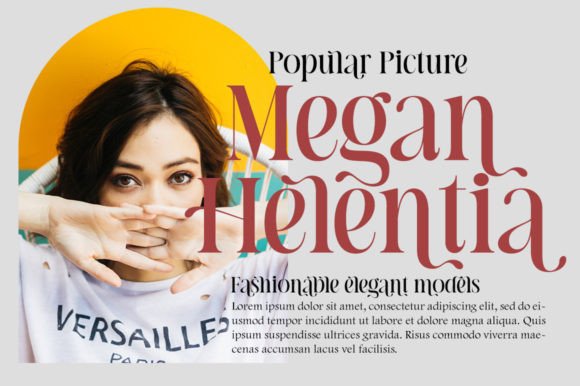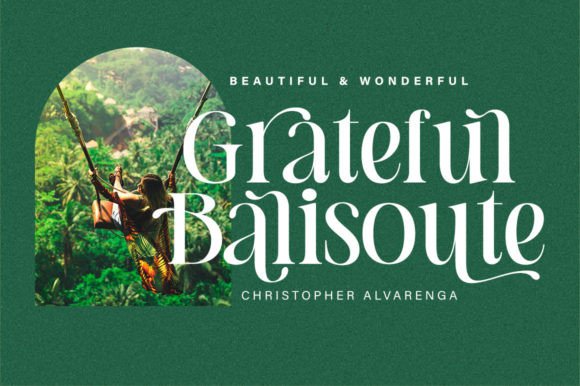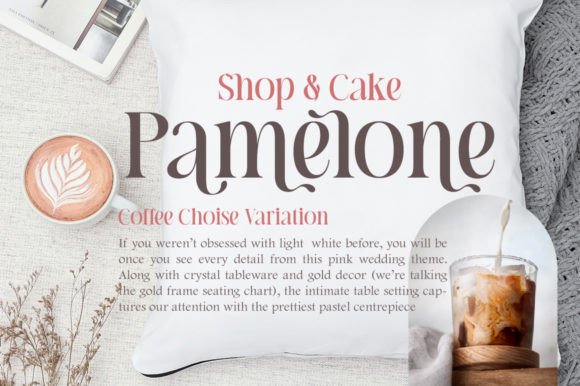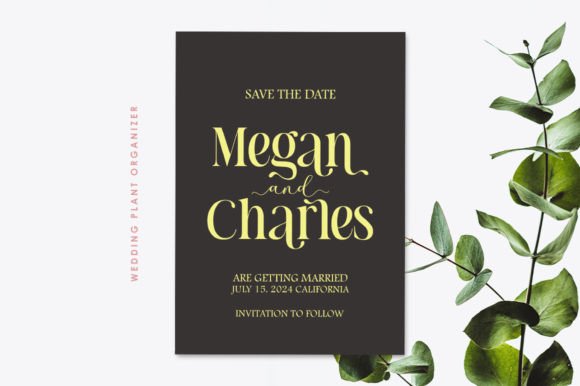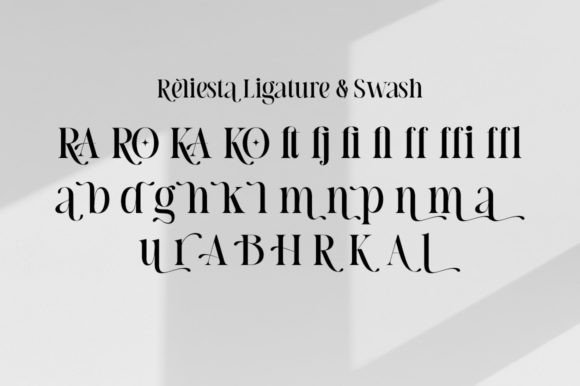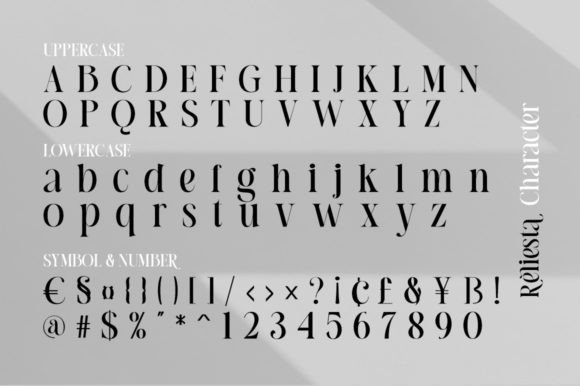
Introduction to Reliesta Font
Have you ever stared at a blank canvas, waiting for inspiration to strike, only to be met with a sea of possibilities and no clear direction? This is where the right design resource can make all the difference. For designers, finding the perfect font can be a game-changer, elevating a creative project from bland to grand.
Enter Reliesta Font, a stunning typeface that embodies the essence of high-quality design. With its natural look and classy, modern style, Reliesta Font is the perfect addition to any project, from elegant invitations to sophisticated branding materials. Whether you’re working on a photography project, advertising campaign, or product packaging design, Reliesta Font’s versatility and sophistication make it an invaluable asset.
Key Features of Reliesta Font
- Features a unique and stylish design, ideal for various creative applications.
- Reliesta Font offers a clean and modern aesthetic, making it suitable for a wide range of creative projects.
- Perfect for designers and artists looking for a high-quality, free design resource for their creative projects.
Honest Review: Reliesta Font
I recently stumbled upon the Reliesta Font, and I’m excited to share my thoughts on this high-quality design resource. As a designer, I’m always on the lookout for unique and creative fonts to elevate my projects. Reliesta Font is a beautiful addition to my collection.
- ✨ Beautiful, elegant design that’s perfect for creative projects
- ✨ Transparent background, making it easy to work with in various design environments
- ⚠️ Limited character set, which may not be ideal for projects requiring extensive text
- ⚠️ Not suitable for bold or dramatic text, as it can get lost in the design
Overall, I’m impressed with the Reliesta Font. It’s a fantastic addition to any designer’s library, and I can see it being used in a variety of creative projects. While it may have some limitations, the quality and style make it well worth the download.
Reliesta Font is a high-quality design resource that offers a unique and creative touch to your projects. With its transparent background, it’s perfect for adding a professional and elegant feel to your designs.
Tips for Getting the Most Out of Reliesta Font
For the best results, use Reliesta Font in conjunction with other high-quality design elements, such as graphics and images. Experiment with different font sizes and colors to create a unique and eye-catching design.
Common Use Cases for Reliesta Font
Reliesta Font is perfect for use in creative projects such as logos, brochures, and business cards. Its high-quality design and transparent background make it ideal for use in a variety of design applications.